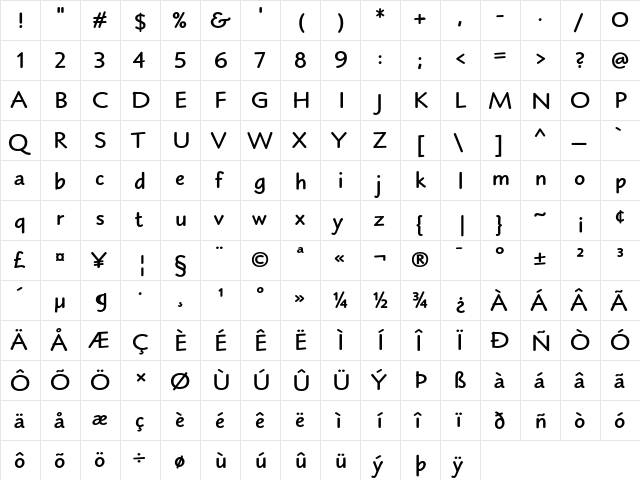
Blueprint MT Bold
Design Context for Blueprint MT Typeface
Blueprint MT is a composed and adaptable typeface that performs quietly and consistently across a wide range of design contexts. The heavy weight commands attention and anchors typographic hierarchies.
Pro Tip: Use Blueprint MT in both headline and body roles to test its range before committing to a single application.